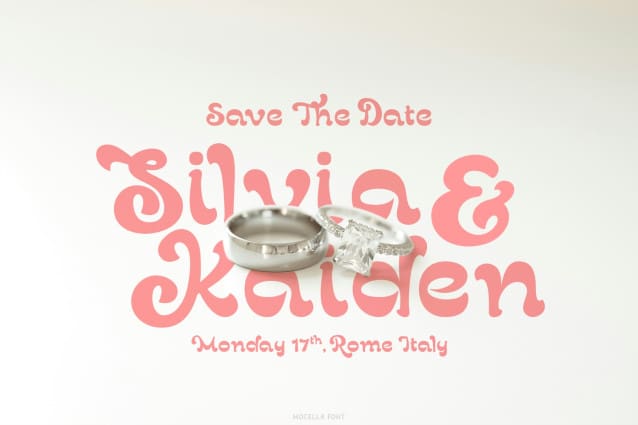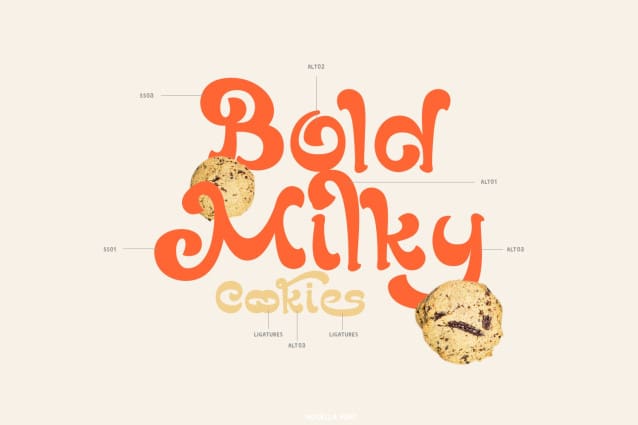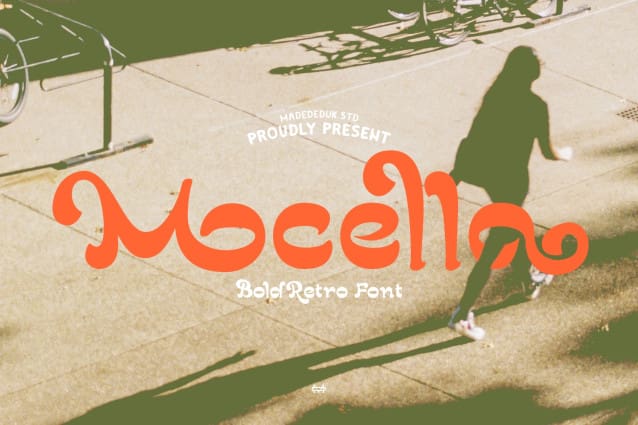
Mocella Font
Mocella Font is a retro font with 80’s style. Classic and refined you can explore and combine creating rhythm for comfortable reading. This font perfect for any projects, such logotype, stickers, greeting / wedding cards, packaging design, headlines, brand identity, t-shirt, posters, magazines, books, Instagram, websites, and many more.